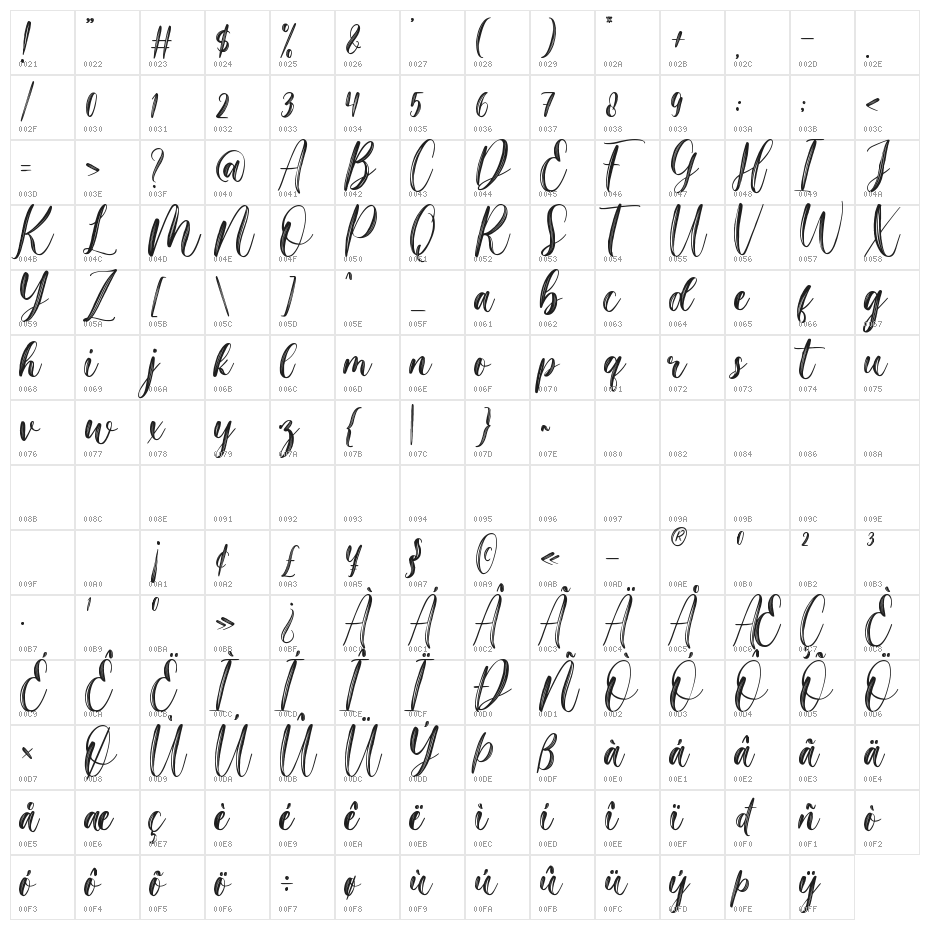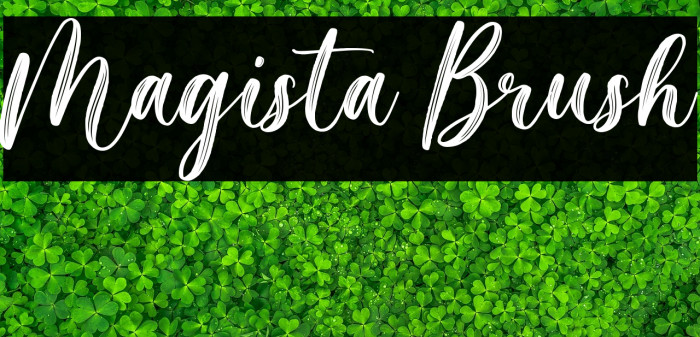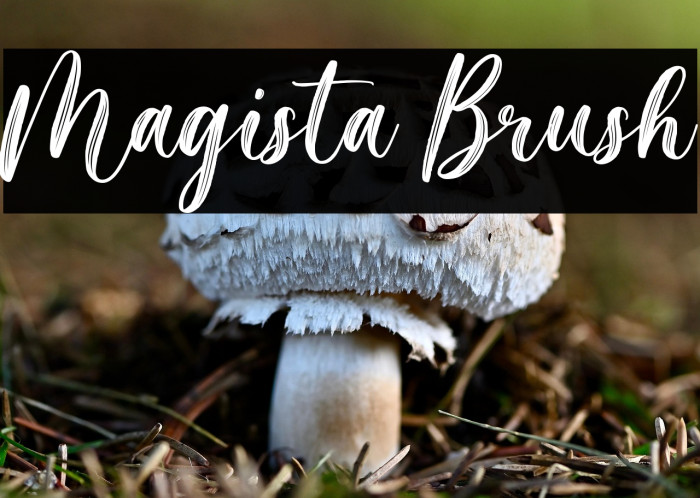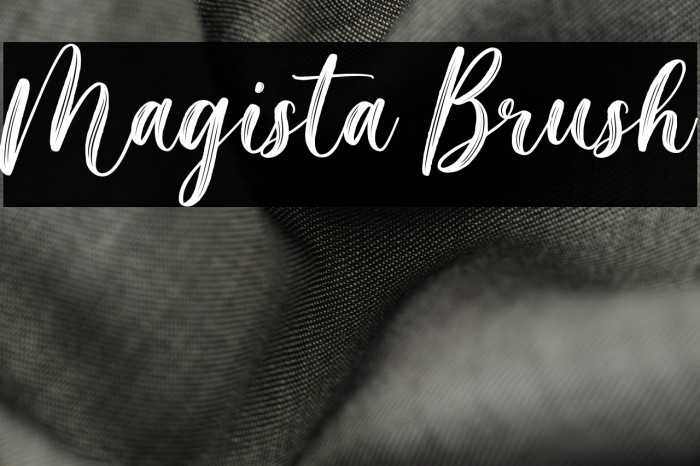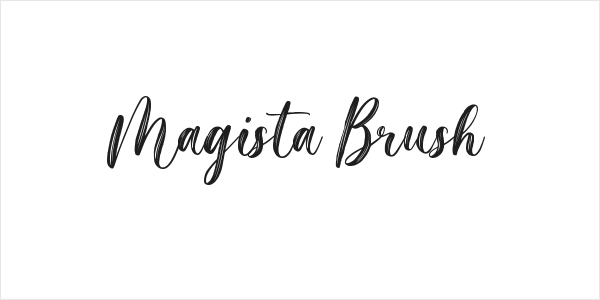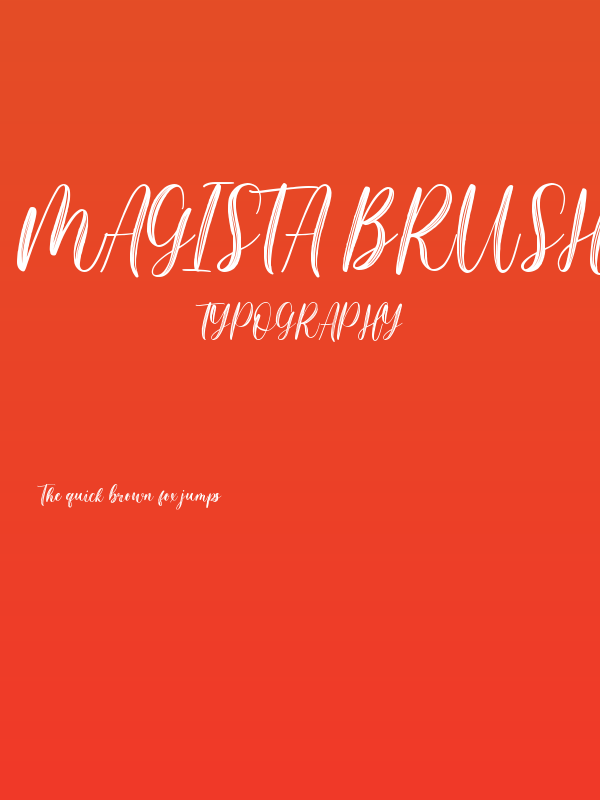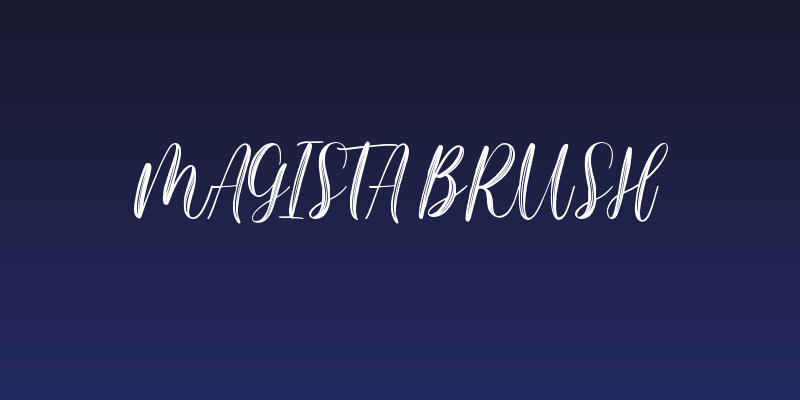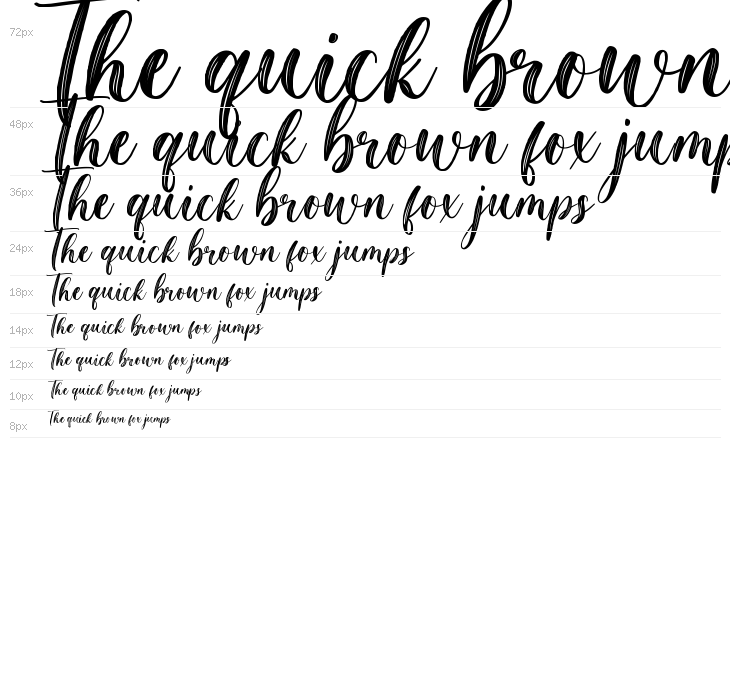
Magista Brush Font
Magista Brush Description
This font exhibits a dynamic and energetic brush script style, characterized by its fluid and flowing letterforms. The strokes are bold and expressive, with a natural hand-drawn appearance that adds a personal touch to any design. The uppercase letters are tall and elegant, while the lowercase letters maintain a consistent rhythm and smooth connections. The numbers and special characters are crafted with the same attention to detail, ensuring a cohesive look across all elements. This font is perfect for projects that require a lively and artistic flair, making it ideal for branding, invitations, and creative displays.
| Proposed Projects | Ideal for branding, invitations, creative displays, and artistic projects. |